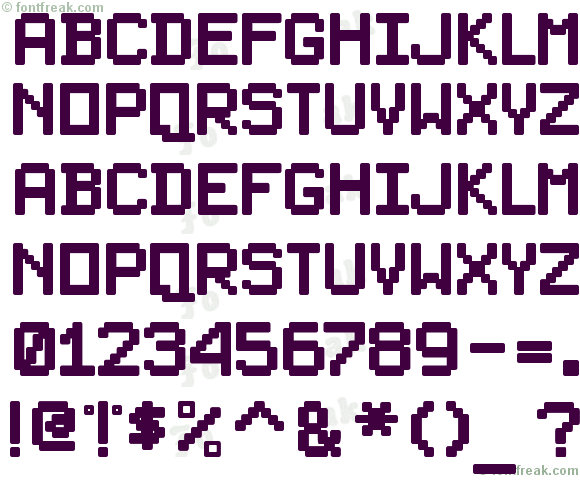
PixelSplitter-Bold
About PixelSplitter-Bold
PixelSplitter-Bold is a distinctive display font designed by Manfred Klein in 2003, showcasing a unique pixelated style that captures the aesthetic of early digital art. This font belongs to the category of decorative typefaces, with a bold and blocky appearance that is reminiscent of retro video games. The stroke weight is uniform, creating a solid and impactful presence, while the spacing between characters is tight, enhancing its compact look. The sharp edges and squared-off corners contribute to its digital charm, making it a fun choice for various creative projects.
The PixelSplitter-Bold font is ideally suited for a range of applications. Its striking visual style makes it a perfect choice for video game graphics, where a nostalgic vibe is essential. It can also be effectively used in creating posters for music events or retro-themed parties, where its boldness can attract attention. Additionally, this font works well for branding small tech startups or apps that want to convey a playful yet modern image. It can even find a place in digital and print media such as flyers or social media graphics, helping content creators stand out in a crowded digital landscape.
What sets the PixelSplitter-Bold font apart is its ability to evoke nostalgia while remaining versatile for contemporary use. Its bold pixelated design not only grabs attention but also adds a touch of personality to any project. For those interested in experimenting with this unique style, the PixelSplitter-Bold font free download is an excellent opportunity to elevate your creative work.